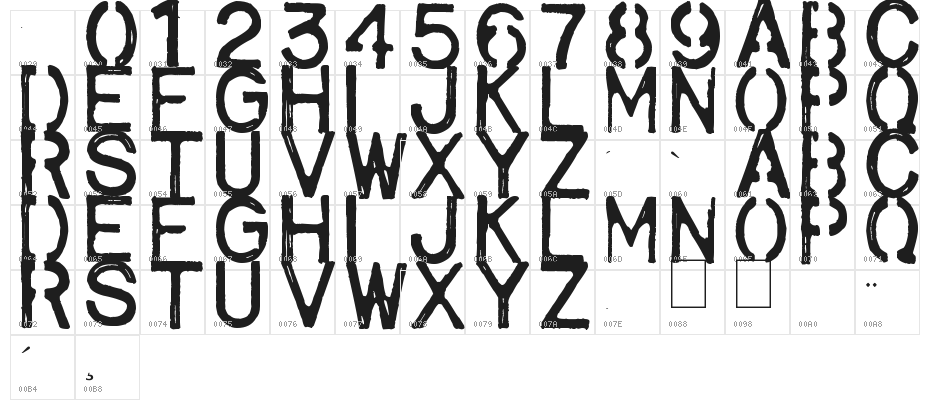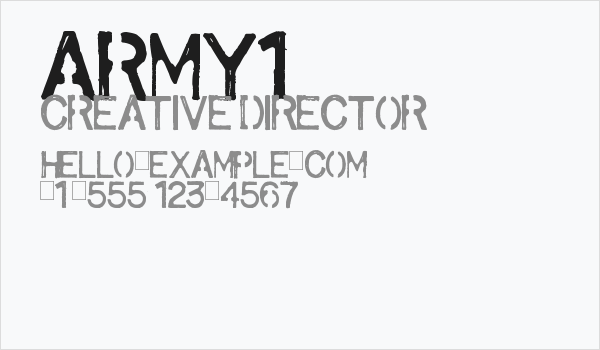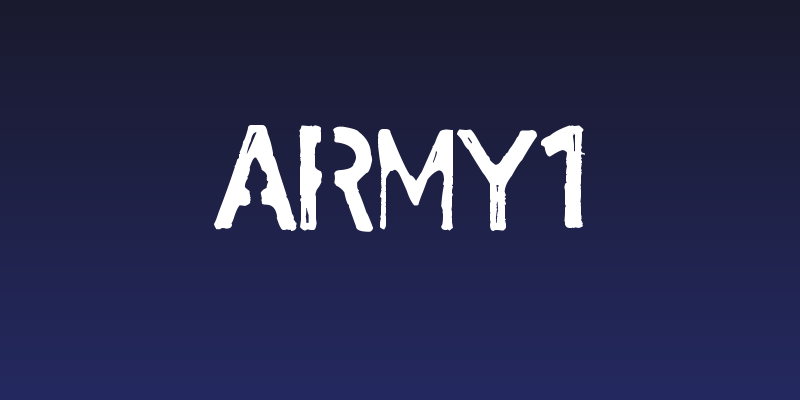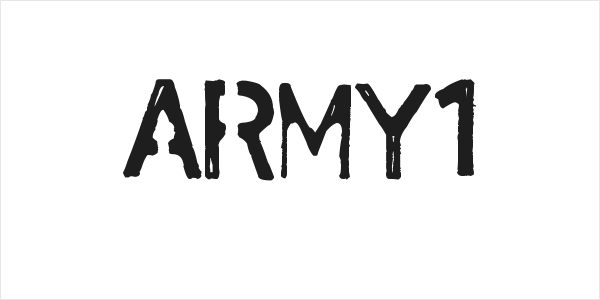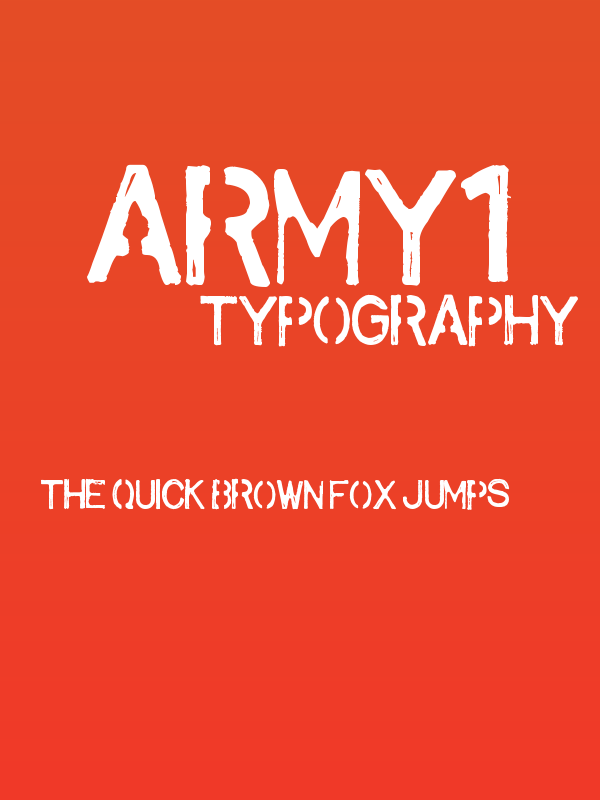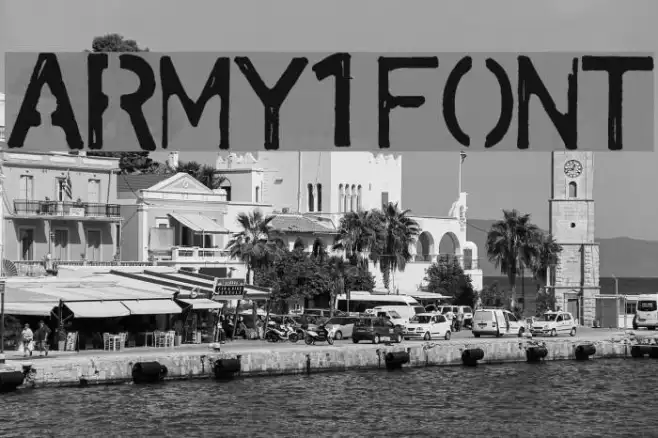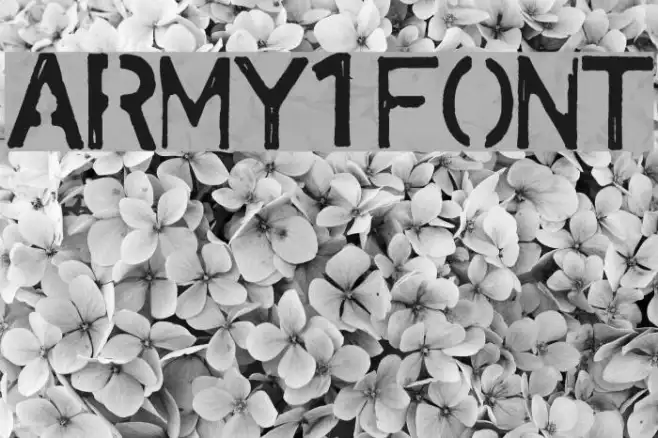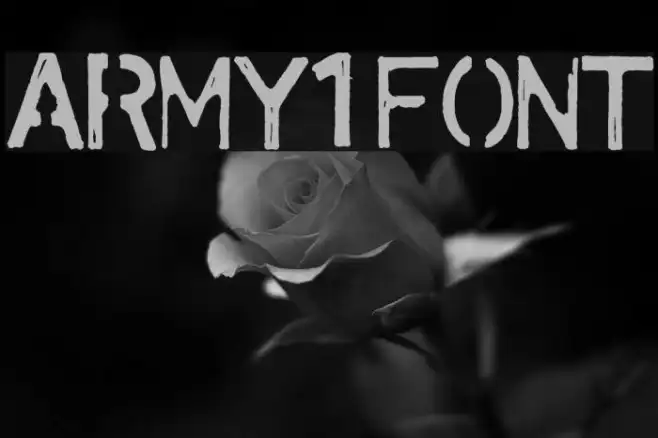
army1 Font
army1 Description
This font features a bold, stencil-like design reminiscent of military or industrial themes. The characters are robust and display a distressed texture, giving them a rugged, worn appearance. The uppercase letters are uniform in height, with distinct cutouts that enhance the stencil effect. The numbers follow the same style, maintaining consistency across the set. This font is ideal for projects that require a strong, authoritative presence, such as posters, signage, or branding materials that aim to convey strength and resilience.
| Overall Style | Industrial, Military |
| Proposed Projects | Ideal for military-themed designs, industrial branding, posters, and signage. |